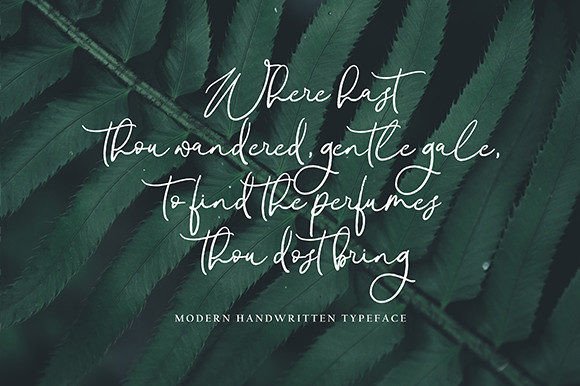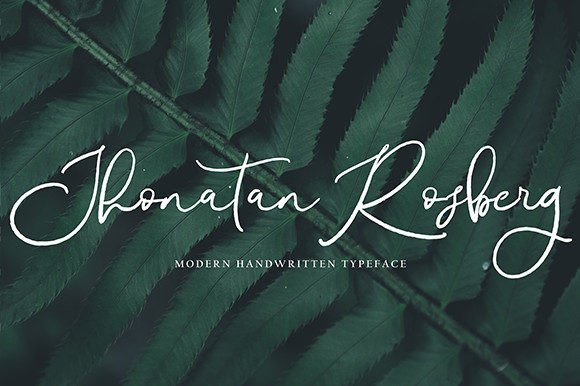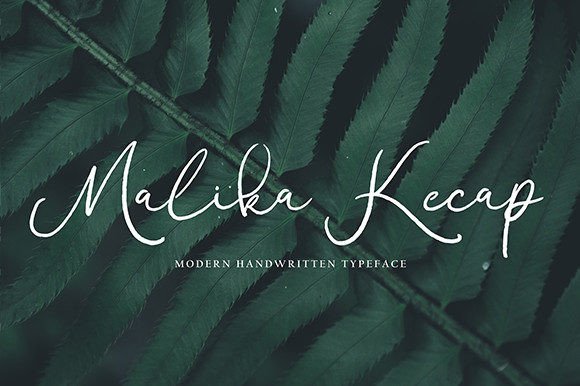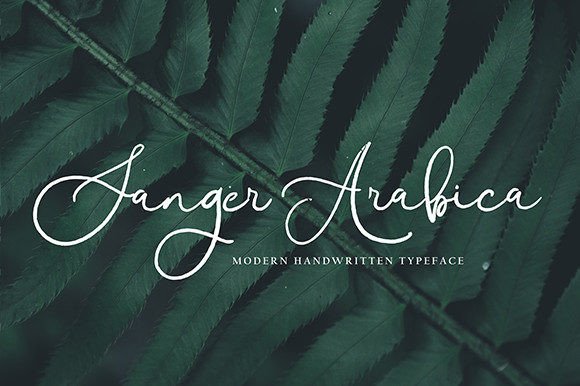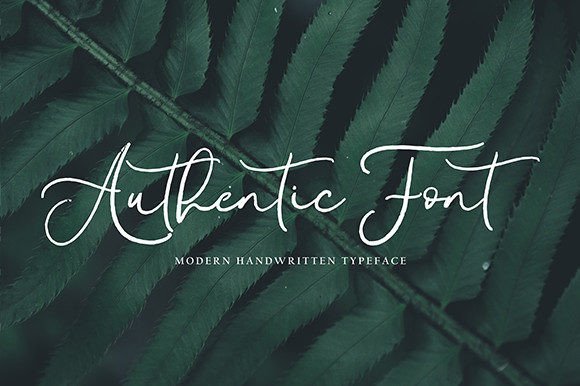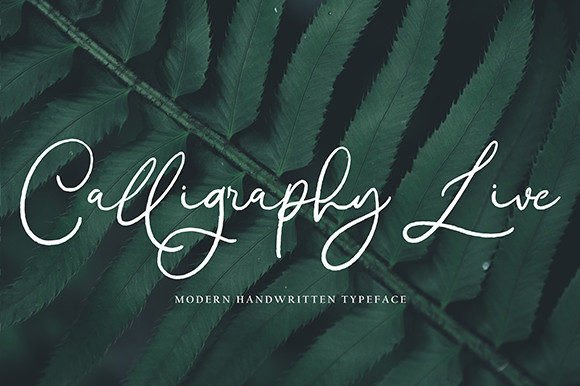
Discover the Elegance of Brinleigh Font: Elevate Your Designs with this Beautifully Flowing Script Font
Are you a designer or crafter looking for a font that can add a touch of elegance and sophistication to your projects? Look no further than the Brinleigh Font. This beautifully flowing script font is perfect for a wide range of applications, from quotes and logos to blog headers, posters, branding, letters, invitations, and stationery.
What Makes Brinleigh Font So Special?
Brinleigh Font is a unique and stylish script font that is designed to add a touch of class and sophistication to any project. Its flowing lines and curves create a sense of movement and fluidity, making it perfect for designs that require a sense of elegance and refinement. Whether you’re working on a logo, a poster, or a blog header, Brinleigh Font is sure to make your design stand out.
One of the best things about Brinleigh Font is its versatility. It’s perfect for a wide range of projects, including:
- Quotes: Add a touch of elegance to your inspirational quotes with Brinleigh Font.
- Logos: Create a sophisticated and professional logo for your business with Brinleigh Font.
- Blog Headers: Add a touch of style and sophistication to your blog headers with Brinleigh Font.
- Posters: Create eye-catching posters that grab attention with Brinleigh Font.
- Branding: Use Brinleigh Font to create a consistent and professional brand image.
- Letters: Add a touch of elegance to your letters and correspondence with Brinleigh Font.
- Invitations: Create beautiful and sophisticated invitations for special occasions with Brinleigh Font.
- Stationery: Add a touch of style and sophistication to your stationery with Brinleigh Font.
Why Choose Brinleigh Font?
There are many reasons why Brinleigh Font is a great choice for designers and crafters. Here are just a few:
- Unique and Stylish: Brinleigh Font is a unique and stylish script font that will add a touch of elegance to any project.
- Easy to Read: Despite its elegant and flowing lines, Brinleigh Font is easy to read and understand.
- Versatile: Brinleigh Font is perfect for a wide range of projects, from logos and posters to blog headers and stationery.
- High-Quality: Brinleigh Font is a high-quality font that is designed to produce crisp and clear results.
Tips for Using Brinleigh Font
Here are a few tips for using Brinleigh Font in your designs:
- Use it Sparingly: Brinleigh Font is a elegant and sophisticated font, so use it sparingly to add a touch of class to your designs.
- Experiment with Colors: Brinleigh Font looks great in a variety of colors, so experiment with different colors to find the one that works best for your design.
- Pair it with Other Fonts: Brinleigh Font pairs well with other fonts, so don’t be afraid to experiment with different font combinations.
Brinleigh Font is a beautifully flowing script font that is perfect for designers and crafters looking to add a touch of elegance and sophistication to their projects. Its versatility, unique style, and high-quality design make it a great choice for a wide range of applications. Whether you’re working on a logo, a poster, or a blog header, Brinleigh Font is sure to elevate your design and make it stand out.